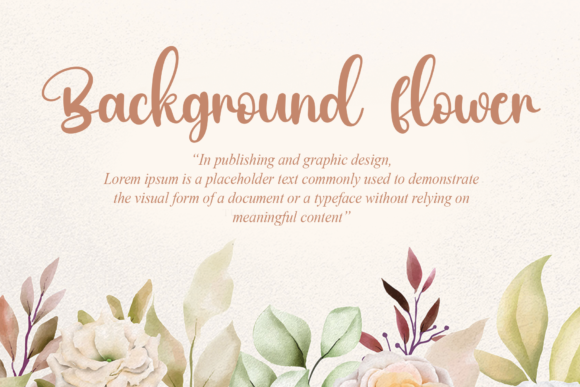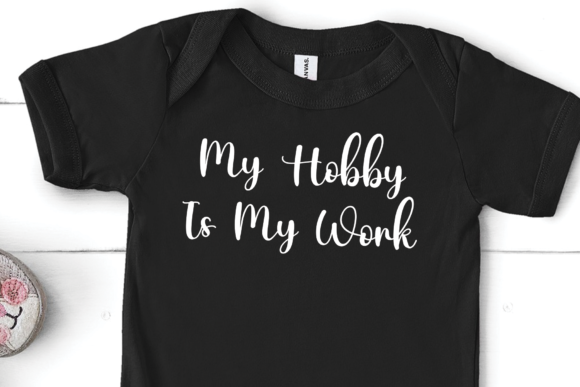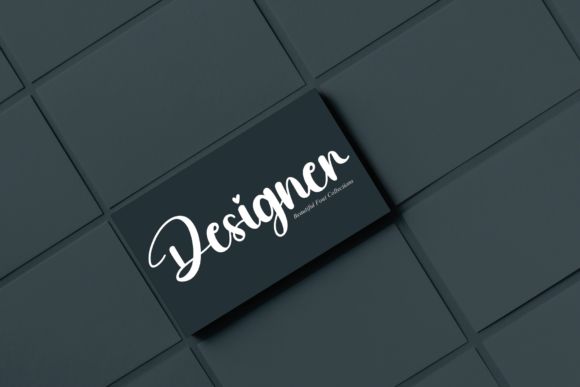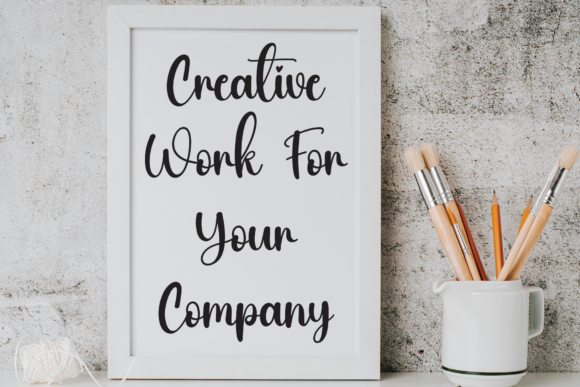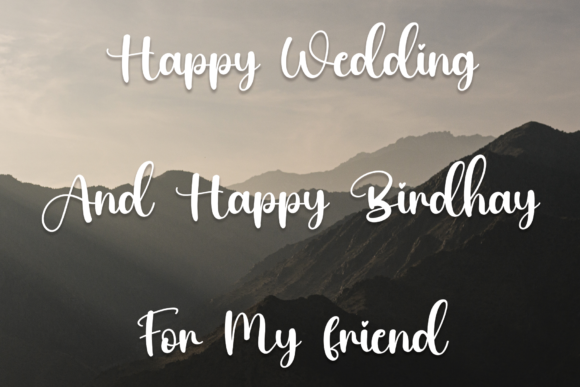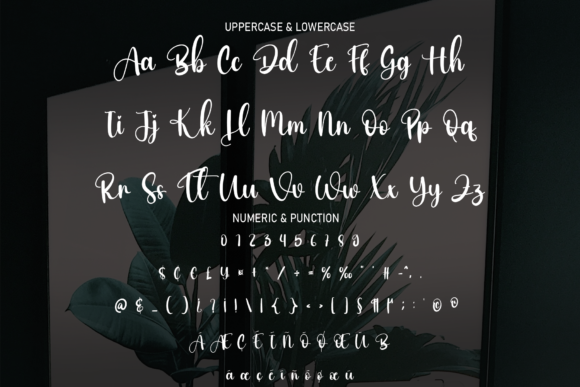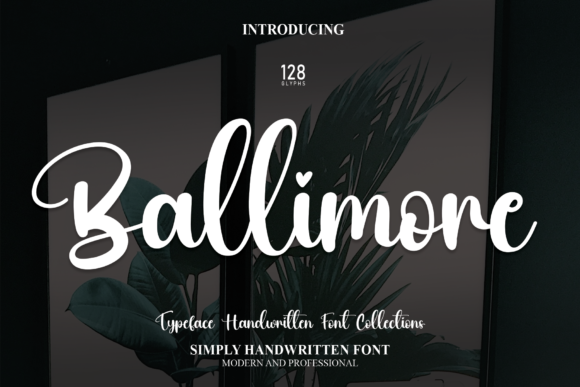
Introducing Ballimore Font: A Timeless Handwritten Script for Creative Projects
Are you a designer, craftsperson, or creative enthusiast looking for a versatile and stylish font to elevate your projects? Look no further than Ballimore Font, a classic and simple handwritten script that’s perfect for a wide range of applications. In this article, we’ll explore the unique features and benefits of Ballimore Font, and show you how it can be used to add a personal touch to your designs.
The Charm of Ballimore Font
Ballimore Font is a beautifully crafted handwritten script that’s characterized by its random and free style. This distinctive approach gives the font a sense of spontaneity and creativity, making it perfect for designers who want to add a personal touch to their work. With its classic and simple design, Ballimore Font is a versatile font that can be used in a variety of contexts, from corporate identity and branding to apparel, posters, and digital media.
What Makes Ballimore Font So Versatile?
One of the key benefits of Ballimore Font is its incredible versatility. This font can be used in a wide range of applications, including:
- Logotype and branding: Create a unique and memorable logo for your business or brand with Ballimore Font.
- Headline font: Use Ballimore Font to add a touch of personality to your headlines and titles.
- Corporate identity: Add a personal touch to your business cards, letterheads, and other corporate materials.
- Brand identity: Use Ballimore Font to create a consistent brand image across all your marketing materials.
- Apparel industry: Create stylish and eye-catching apparel designs with Ballimore Font.
- Poster and advertising: Use Ballimore Font to add a creative touch to your posters, flyers, and other advertising materials.
- Music, movie, and game: Add a personal touch to your music, movie, or game projects with Ballimore Font.
- Magazine and book: Use Ballimore Font to add a touch of personality to your magazine or book designs.
- Comic and cartoon: Create fun and playful comic and cartoon designs with Ballimore Font.
- YouTube, Instagram, and website: Use Ballimore Font to add a personal touch to your social media profiles and website.
Why Choose Ballimore Font?
So why choose Ballimore Font for your creative projects? Here are just a few reasons:
- Unique and distinctive design: Ballimore Font has a one-of-a-kind design that’s sure to stand out.
- Highly versatile: Ballimore Font can be used in a wide range of applications and industries.
- Easy to read: Despite its handwritten style, Ballimore Font is easy to read and understand.
- Perfect for creative projects: Ballimore Font is ideal for designers, craftspersons, and creative enthusiasts who want to add a personal touch to their work.
Tips for Using Ballimore Font
Here are a few tips for getting the most out of Ballimore Font:
- Experiment with different colors and textures: Ballimore Font looks great in a variety of colors and textures, so don’t be afraid to experiment.
- Use it with other fonts: Ballimore Font pairs well with other fonts, so try combining it with other styles to create a unique look.
- Pay attention to spacing: Make sure to adjust the spacing between letters and words to create a clean and easy-to-read design.
- Have fun: Most importantly, have fun with Ballimore Font! Its creative and playful style is perfect for designers who want to add a personal touch to their work.
Ballimore Font is a timeless and versatile handwritten script that’s perfect for a wide range of creative projects. With its unique and distinctive design, Ballimore Font is sure to add a personal touch to your designs and help you stand out from the crowd. Whether you’re a designer, craftsperson, or creative enthusiast, Ballimore Font is a great choice for anyone looking to add a touch of personality to their work.